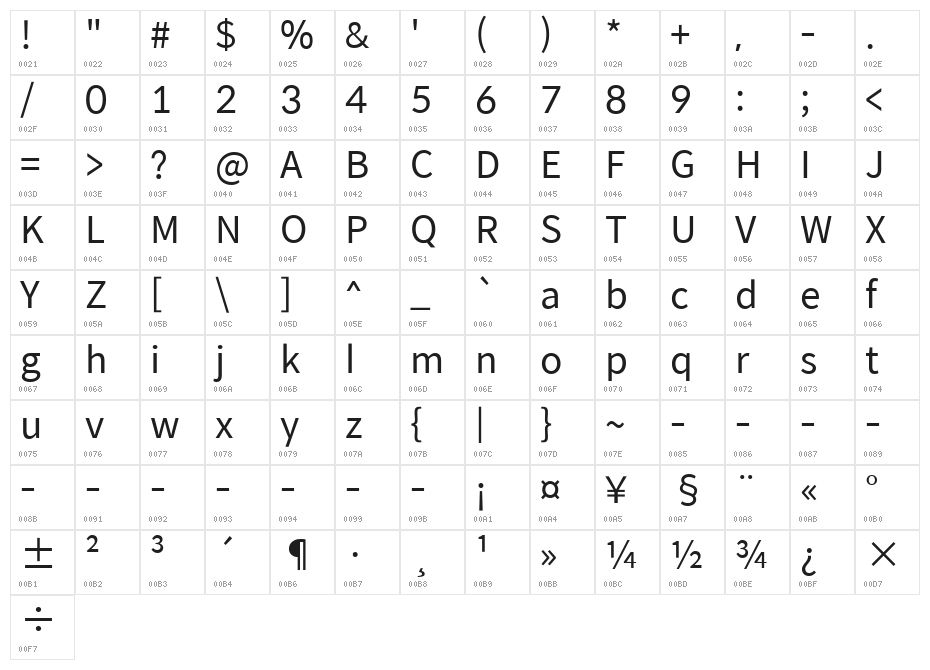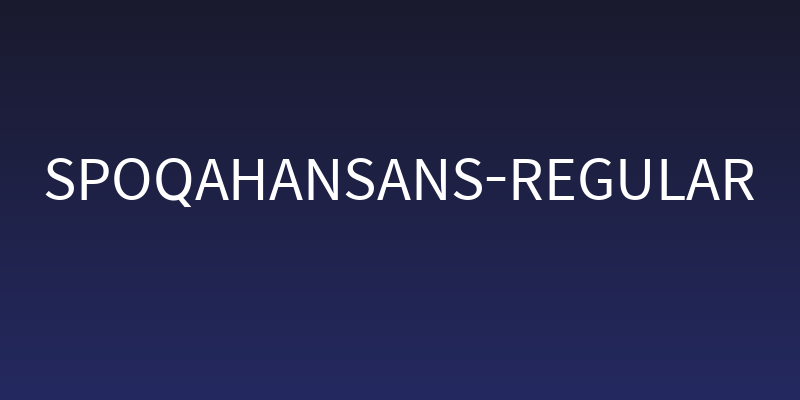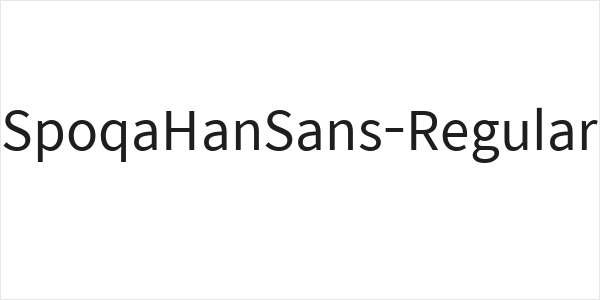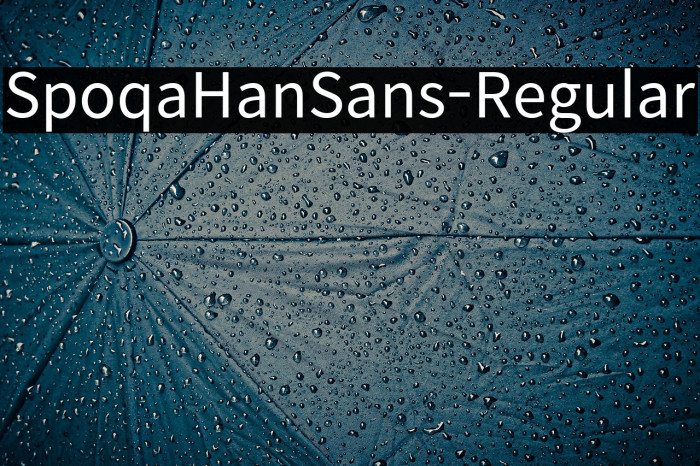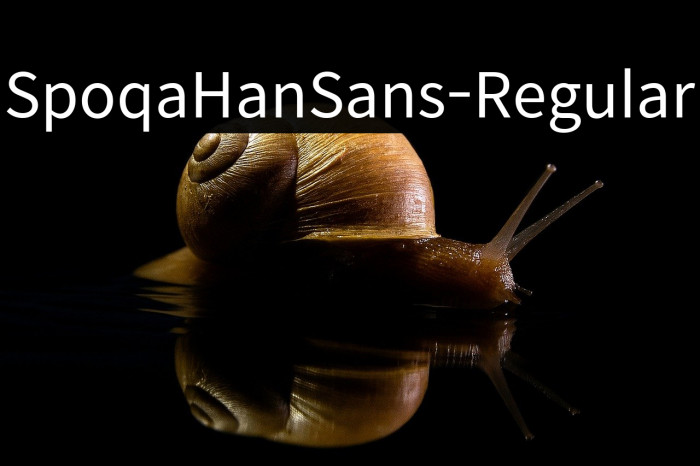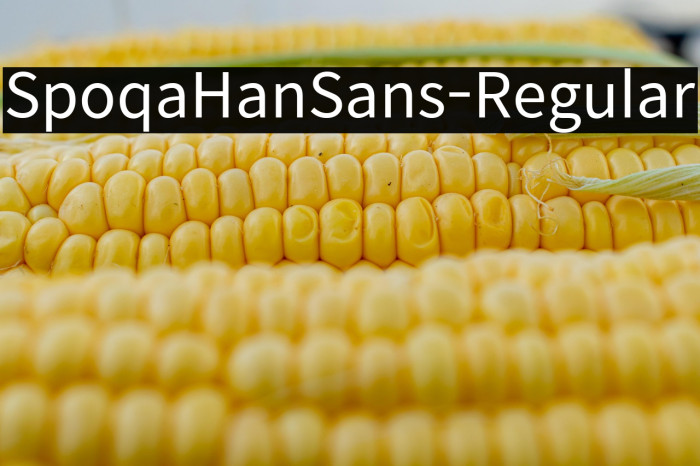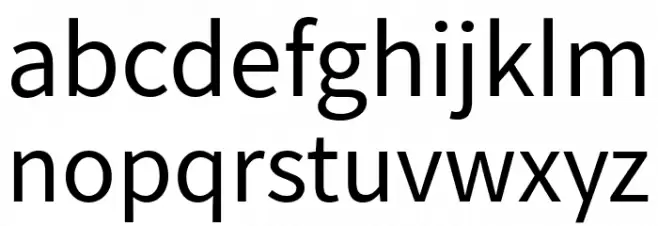
SpoqaHanSans-Regular Font
SpoqaHanSans-Regular Description
This font exhibits a clean and modern sans-serif style with a straightforward and highly legible design. The characters are evenly spaced, contributing to a balanced and harmonious appearance. The strokes are consistent in weight, providing a uniform look across all characters. The font maintains a professional and minimalist aesthetic, making it suitable for a variety of applications. Its simplicity and clarity ensure that it remains readable at different sizes, making it versatile for both digital and print media.
| Proposed Projects | Ideal for web design, corporate branding, user interfaces, and digital content. |